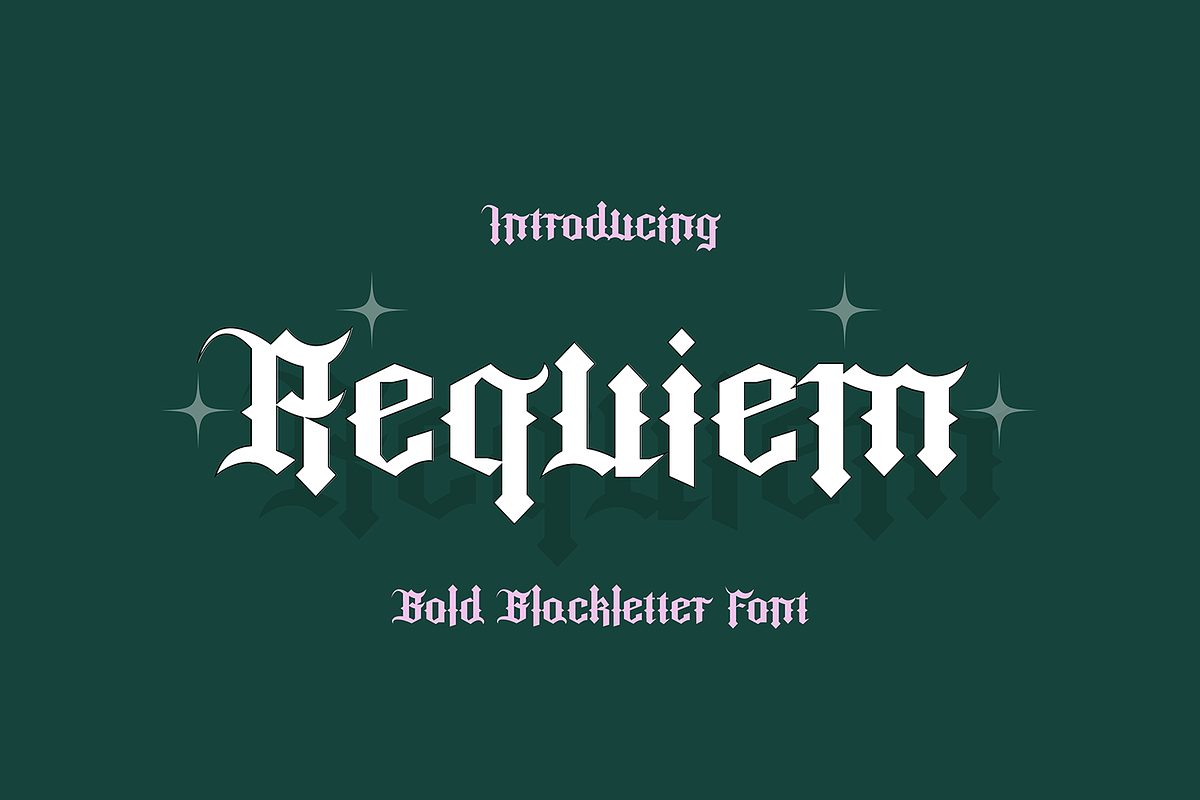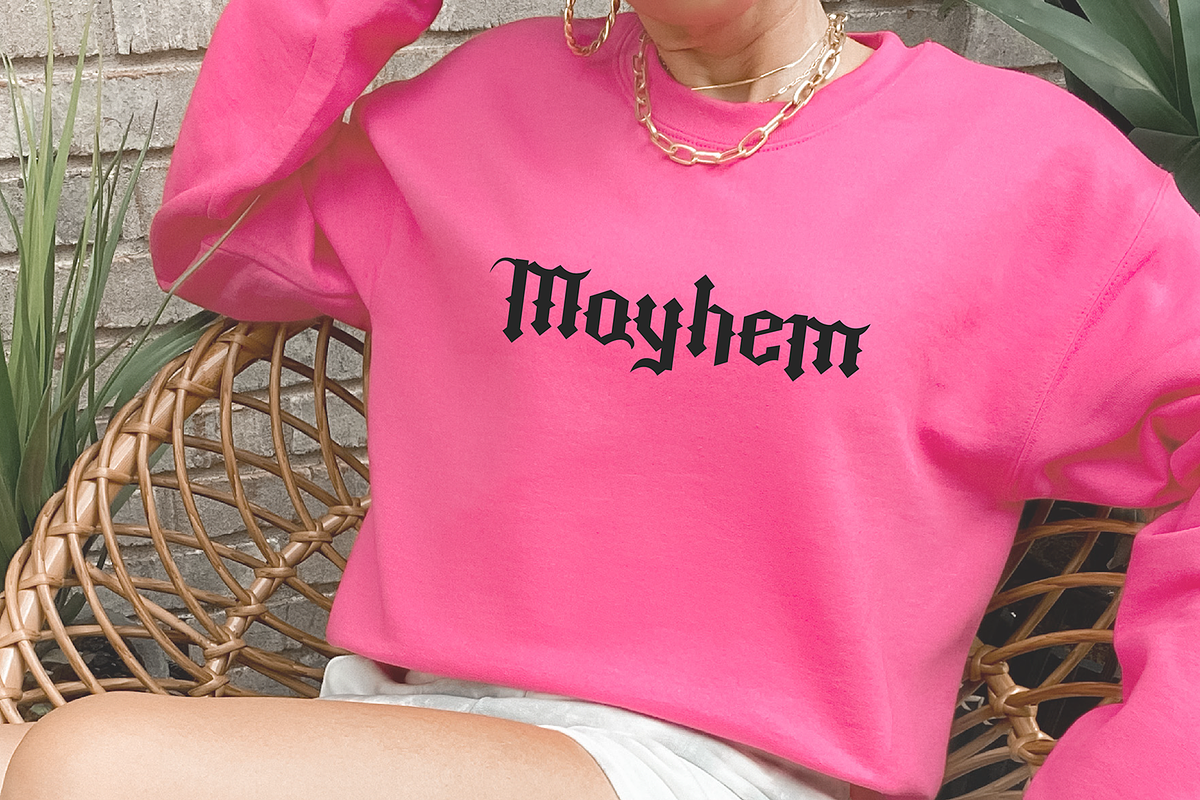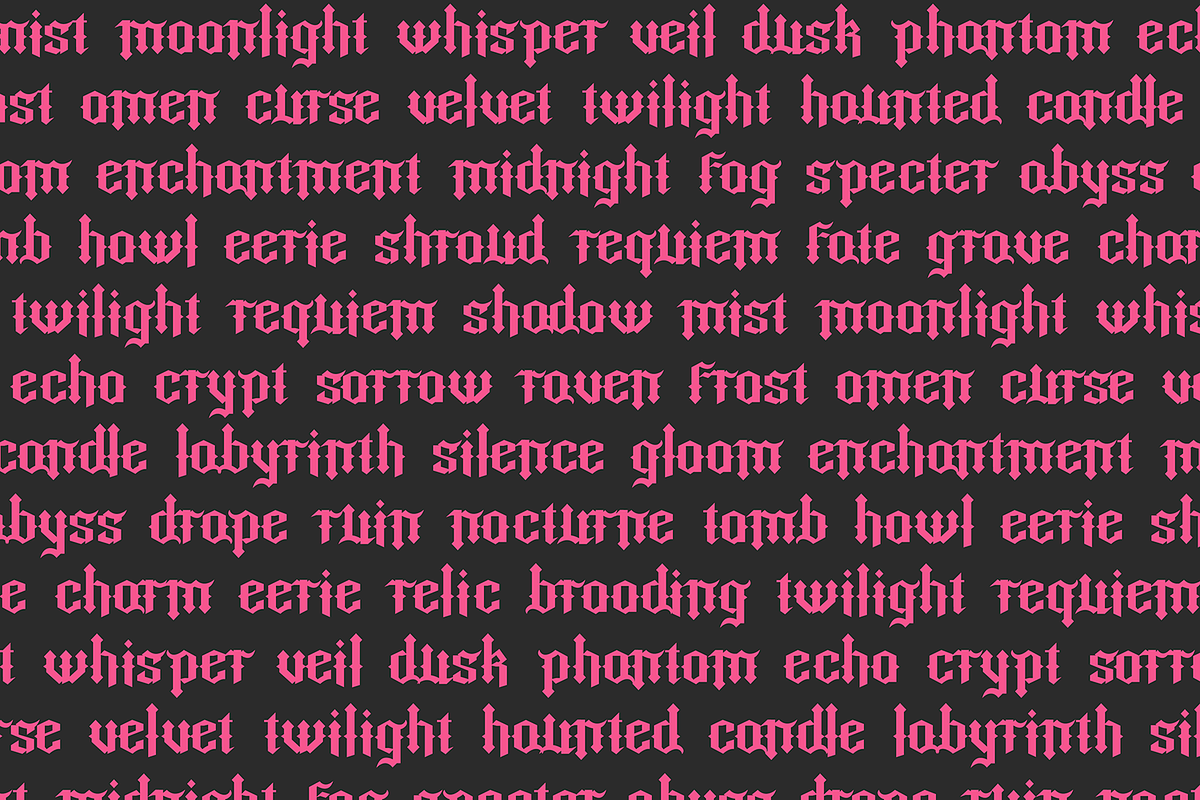
REQUIEM Gothic Blackletter Font
"Requiem" a geometric bold and stylish gothic-style font
This font is a hand-drawn blackletter font that is perfect for social media or crafty projects. Use if for branding, crafts for decor, invitations, and more! Includes upper and lowercase glyphs, numbers, punctuation, and intl characters.